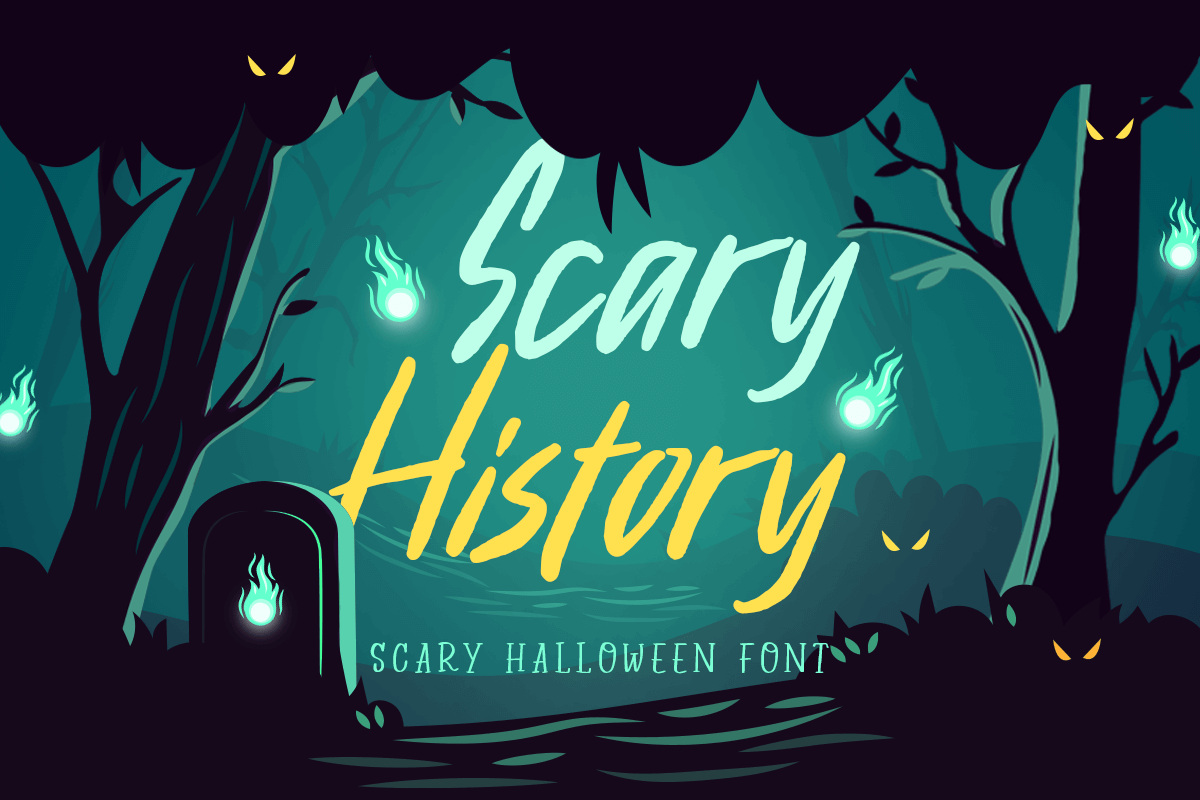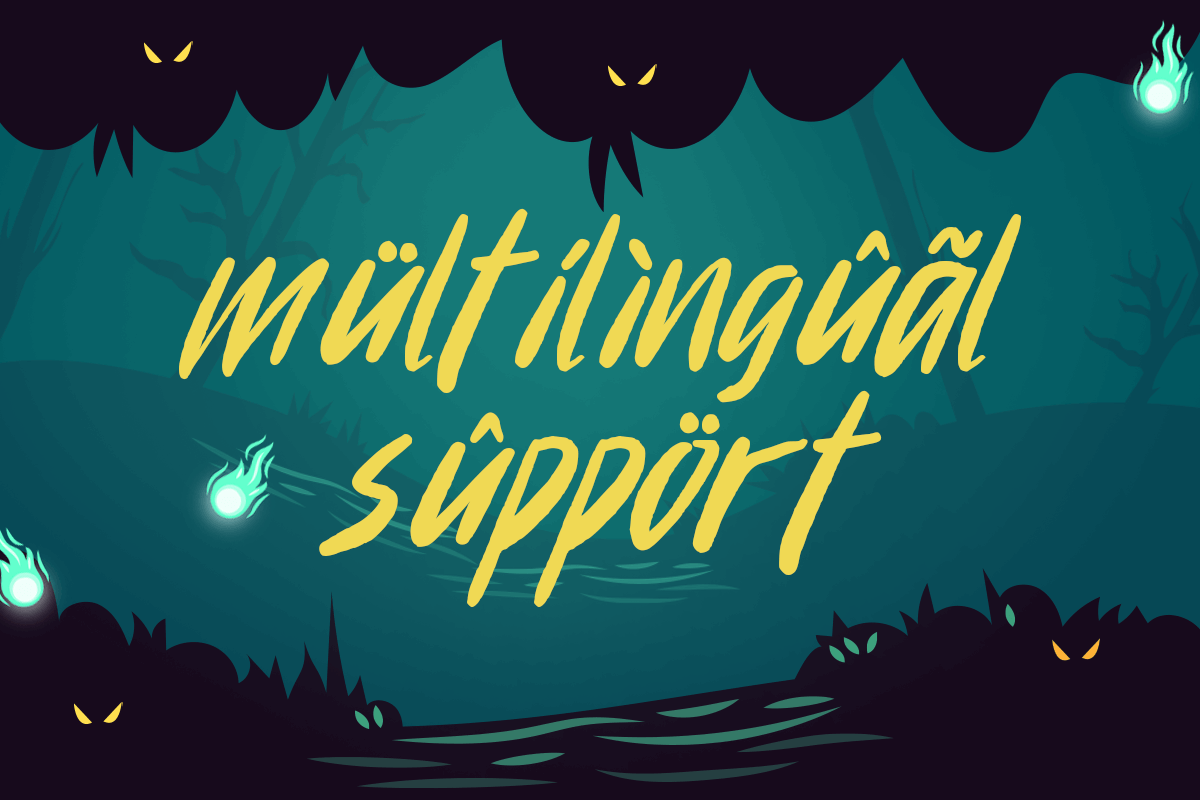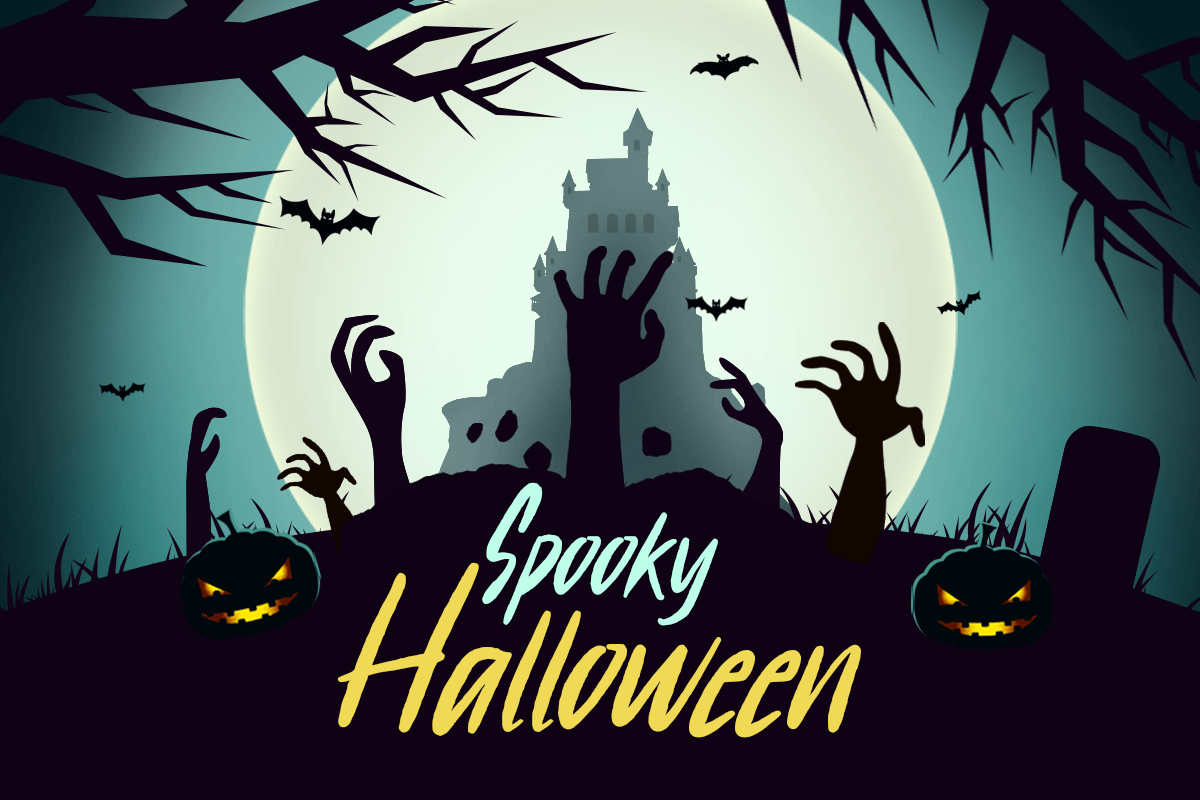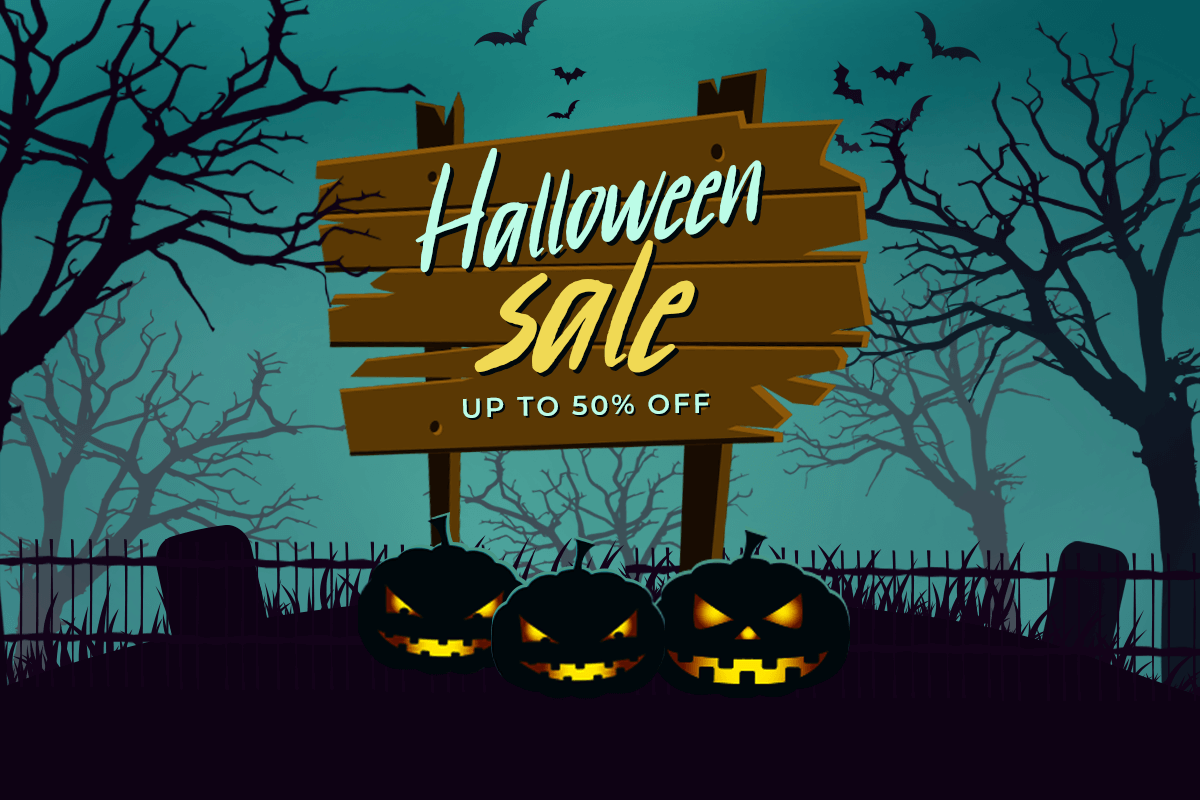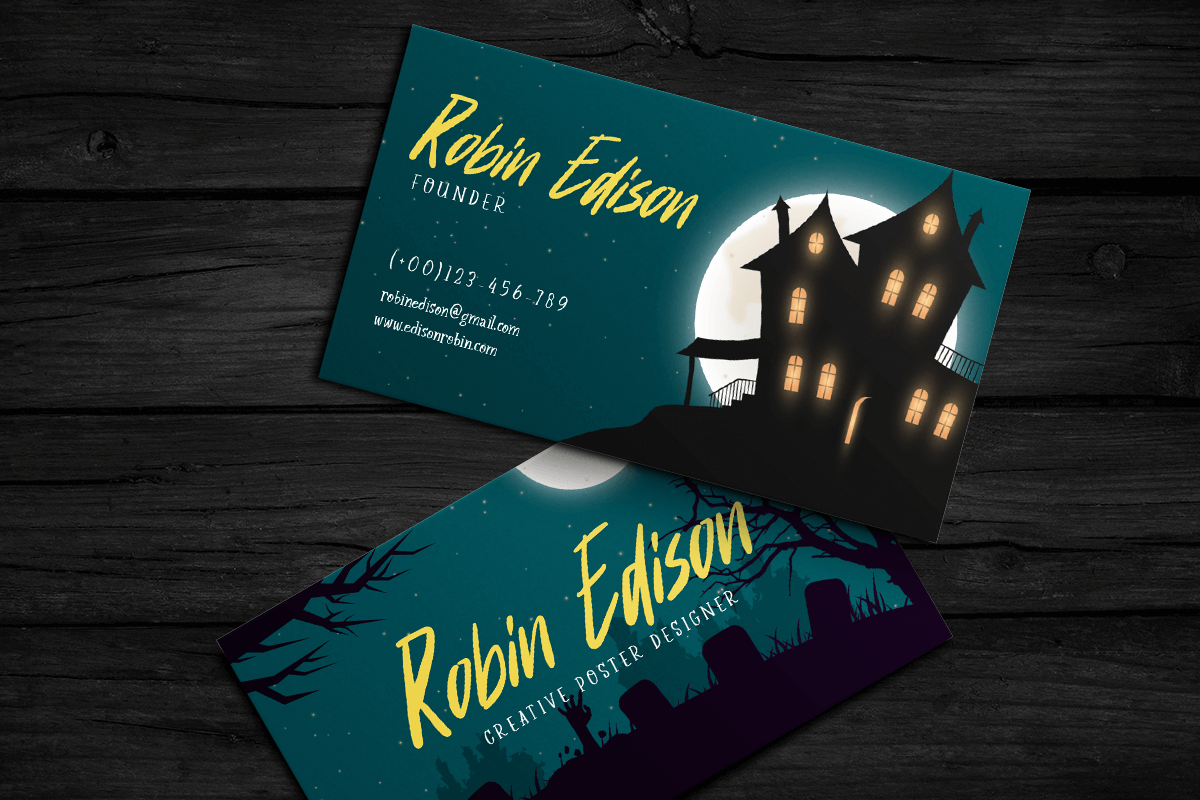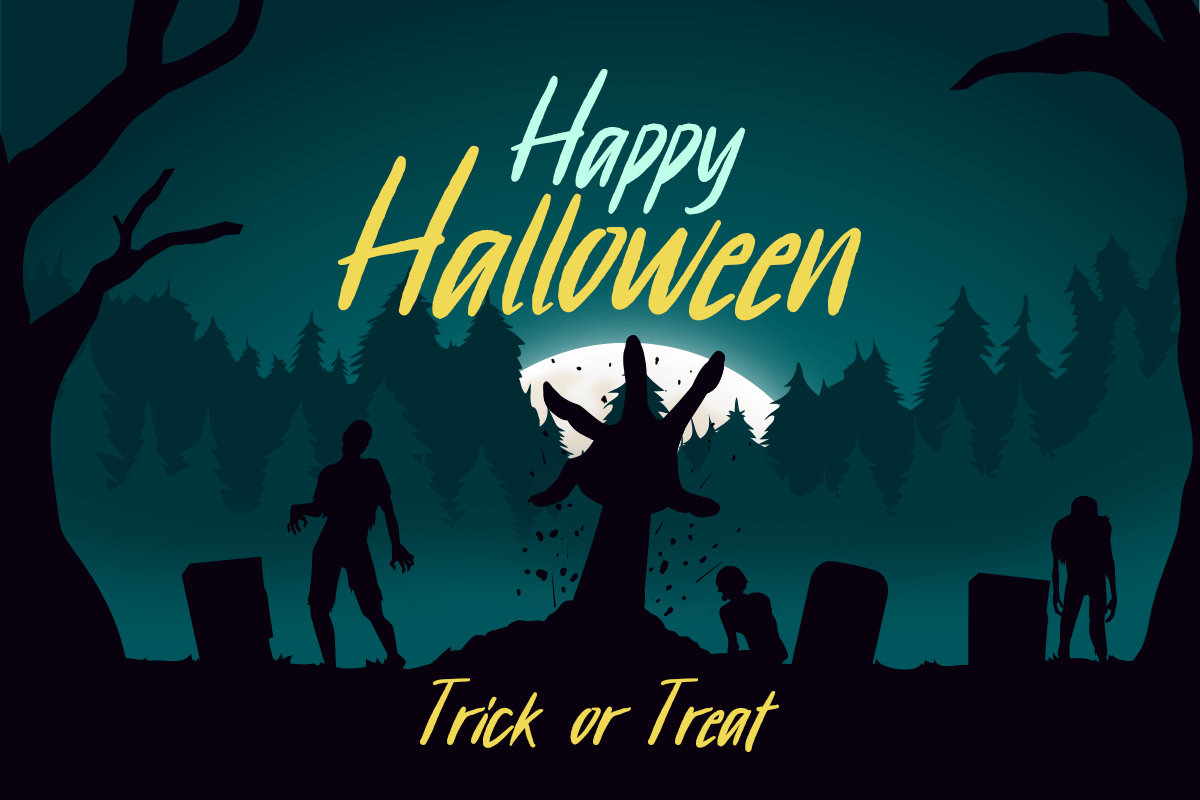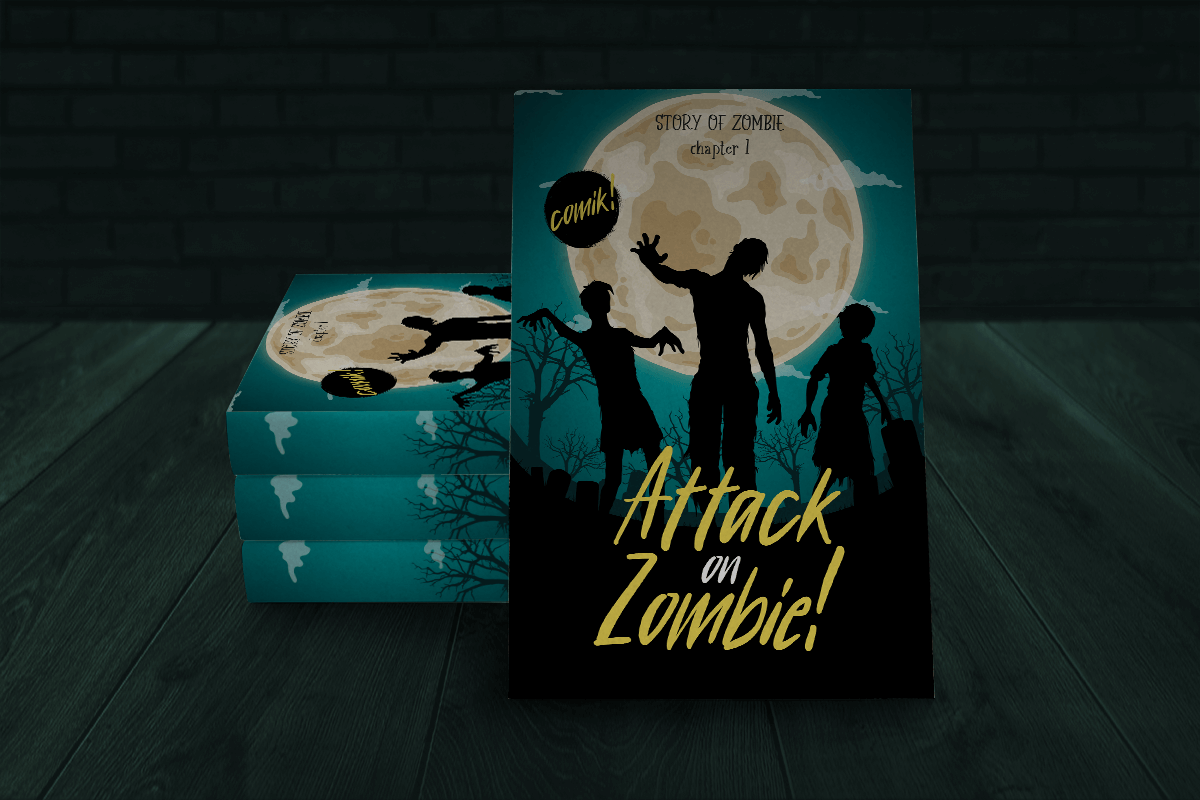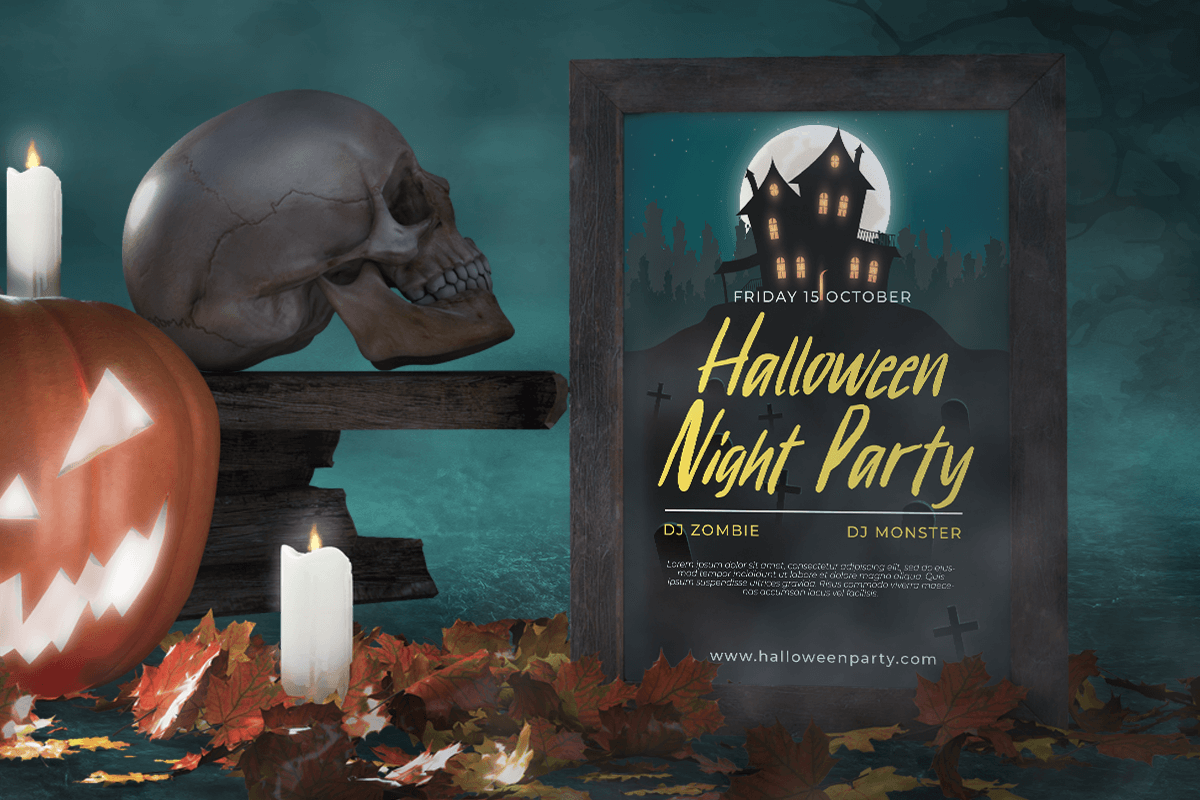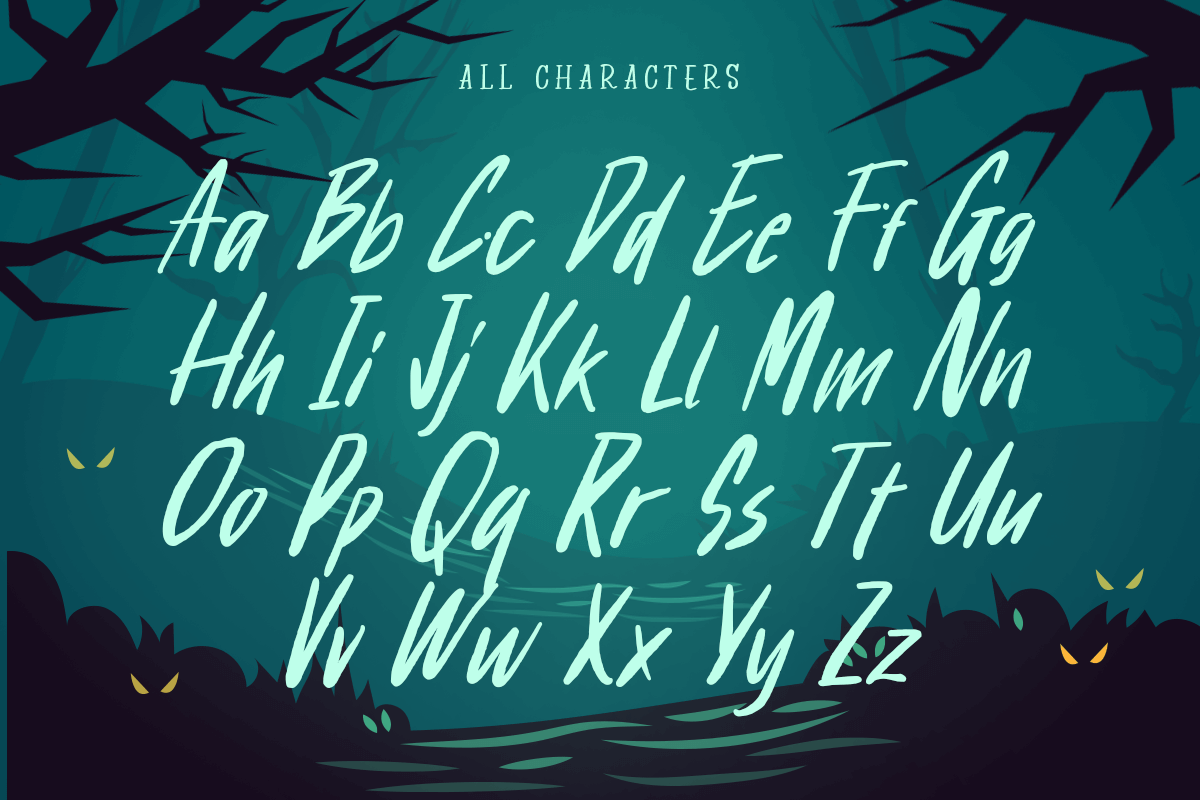
Scary History
-Scary Halloween Font
Scary History
Scary History is Scary Halloween Font
This unique typeface is perfect for designers who want to create designs that capture the essence of Halloween. With its creepy and eerie feel, Scary History is perfect for use in posters, flyers, invitations, and more. Its bold strokes and jagged edges will make your designs stand out and capture your audience’s attention. Whether you’re designing for a Halloween-themed project or just want to add a touch of creepiness to your designs, Scary History is the perfect choice.